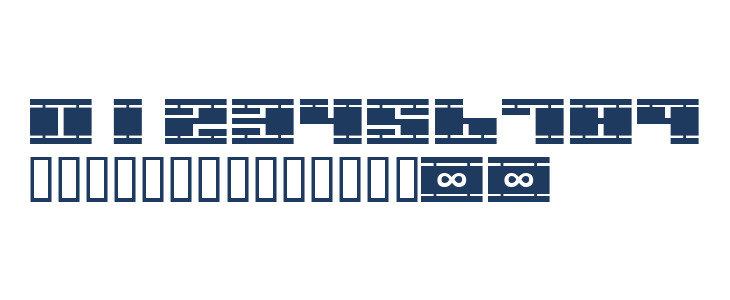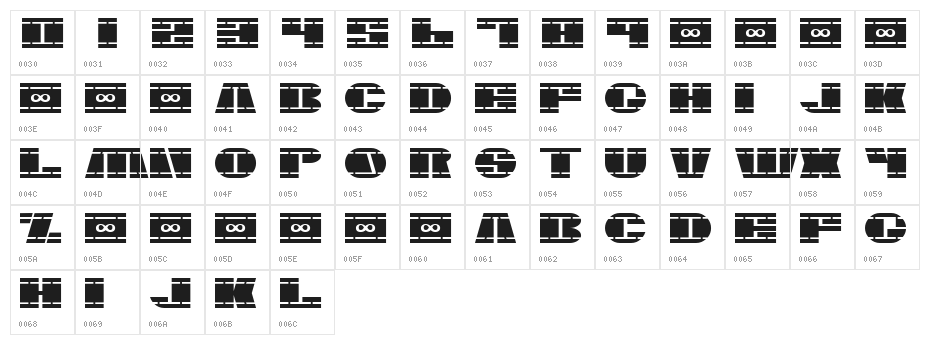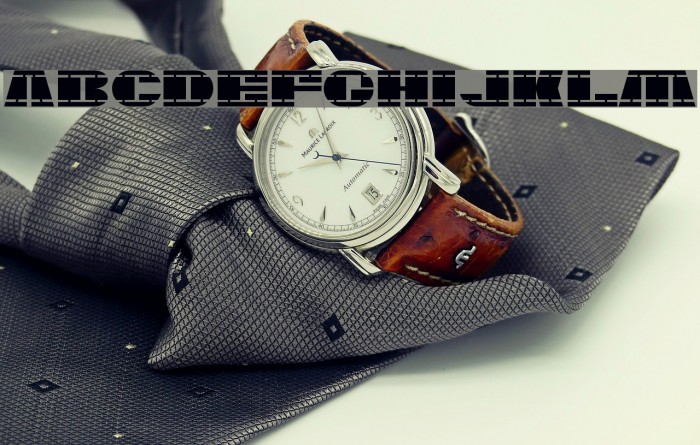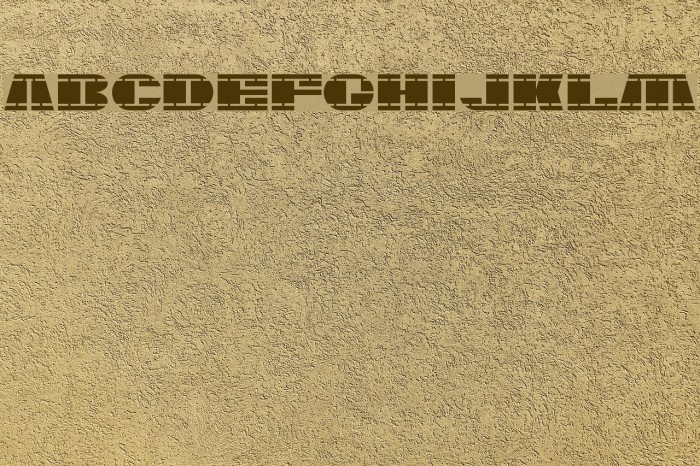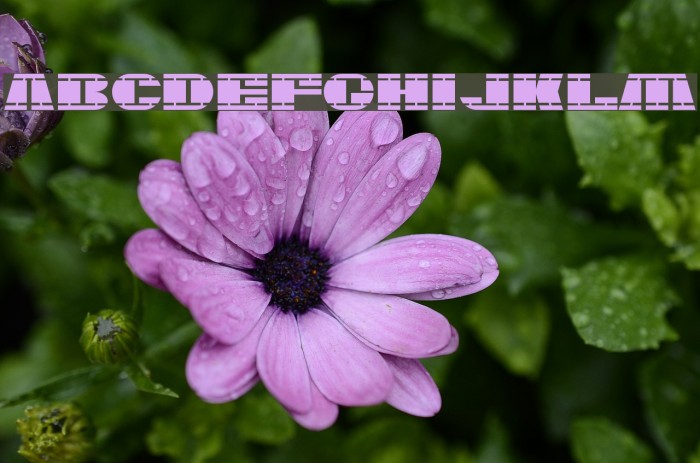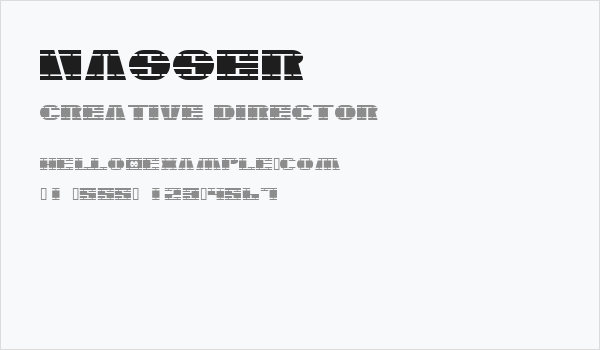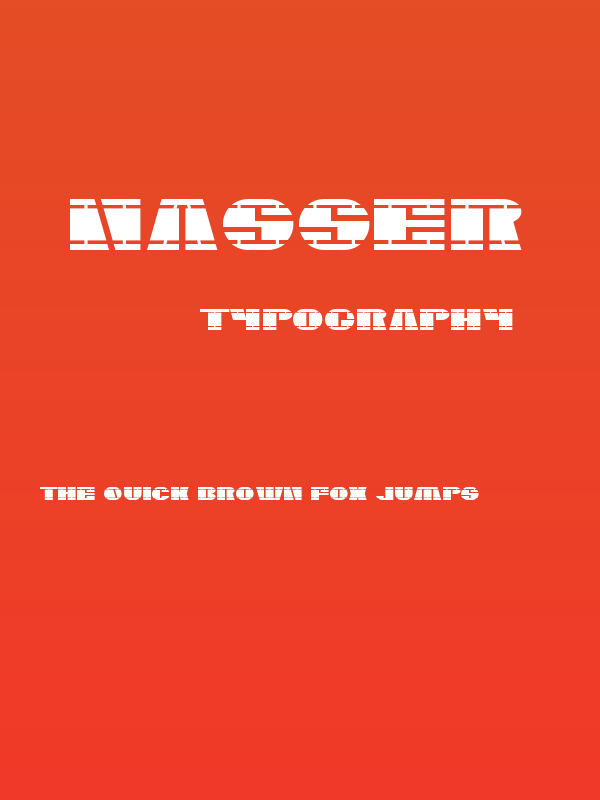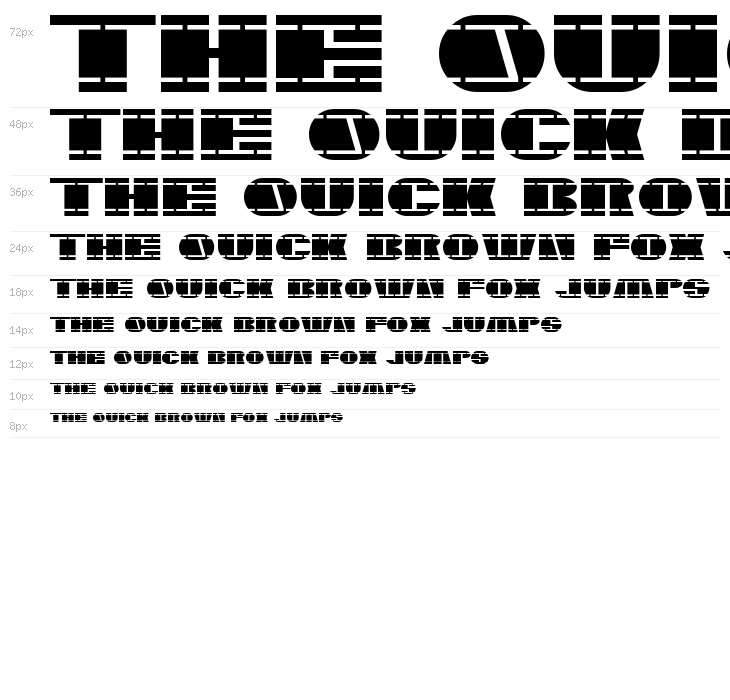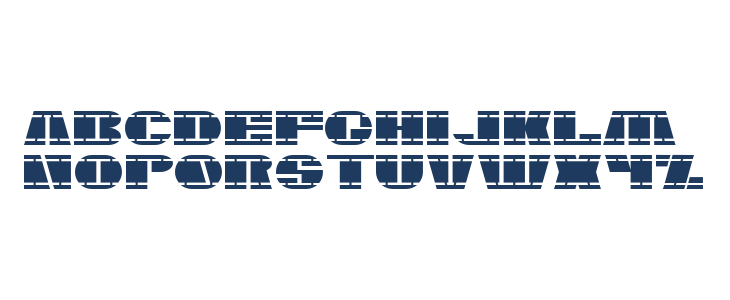
Nasser Font
Nasser Description
This font features a bold, geometric design with a distinct stencil-like appearance. Each character is constructed with solid, blocky shapes that are interrupted by evenly spaced gaps, giving it a mechanical and industrial feel. The uppercase letters are particularly striking, with their strong, angular lines and uniform width. The lowercase letters maintain the same boldness, ensuring consistency across the typeface. Numbers and special characters follow the same design principles, making them easily recognizable and visually cohesive. The overall style is modern and impactful, suitable for making bold statements.